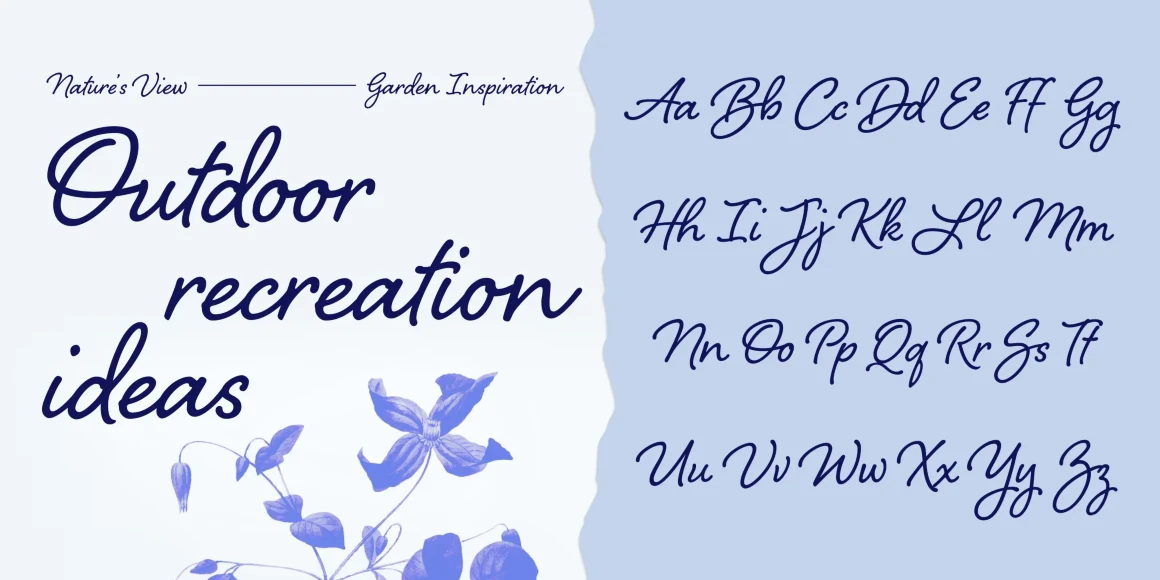
Shelby Font Family
Shelby Regular
Shelby Bold
Shelby
Shelby is friendly and casual; a monoline, semi-connected script typeface based on hand lettering. It has the natural appearance of handwriting, yet can be used to create appealing headlines, logos and eye catching call-outs. Shelby features ligatures, stylistic and contextual alternates, and 20 ornaments designed to complement its handwritten look.
OpenType Features
• Common Ligatures
• Ornaments
• Stylistic Alternates
• Stylistic Sets